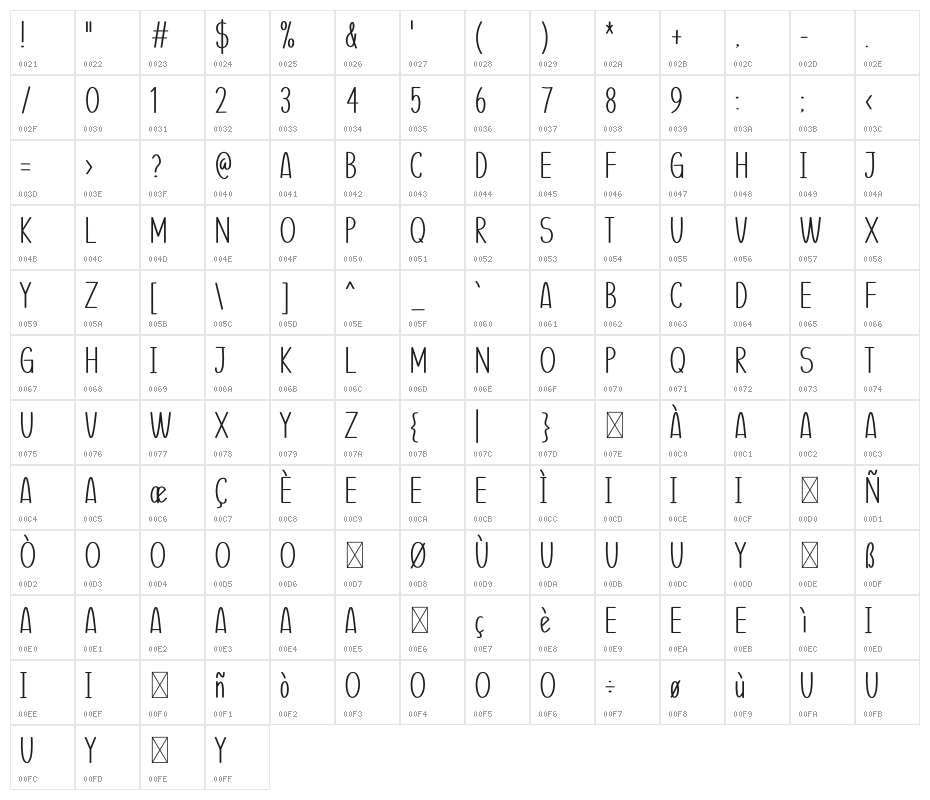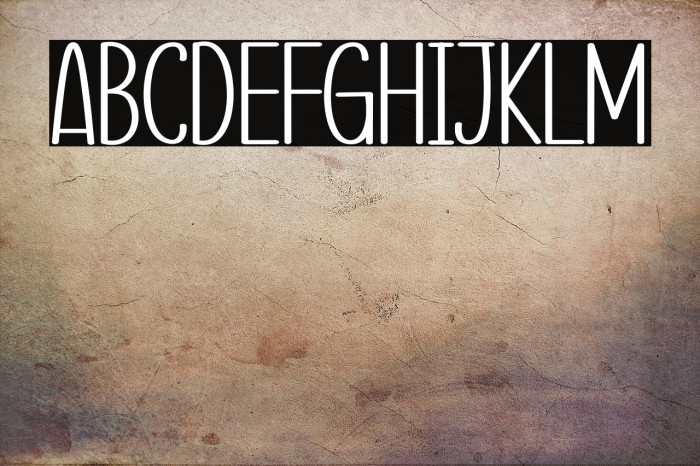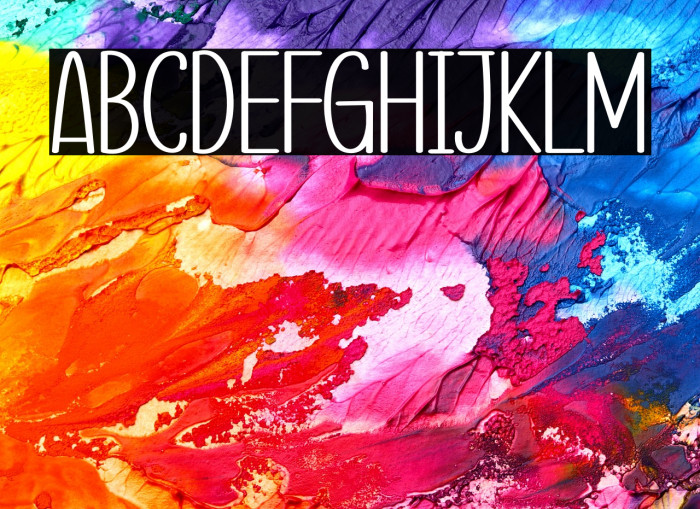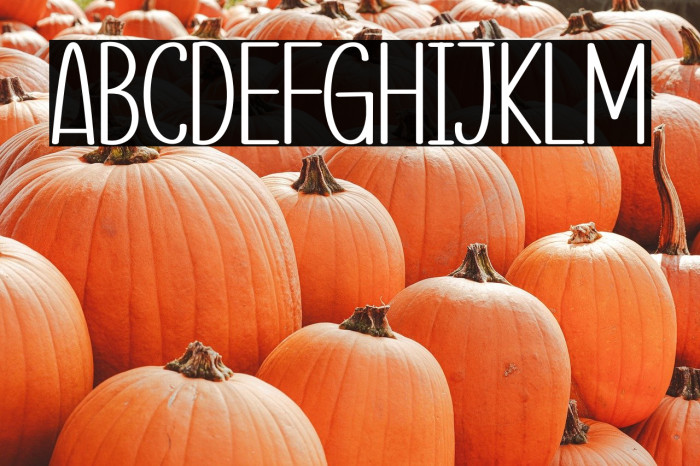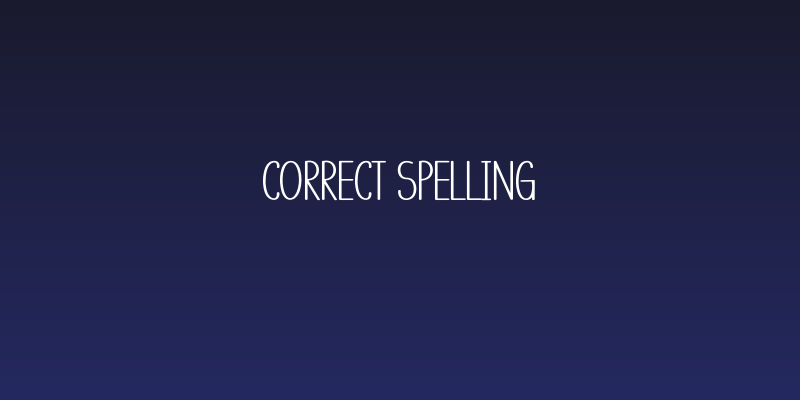
Correct Spelling Font
Correct Spelling Description
A tall, narrow sans-serif typeface with rounded terminals and consistent stroke width, featuring clear and legible characters with generous vertical proportions and minimal ornamentation.
| Overall Style | Playful, Modern, Informal |
| Use Case | Headlines, Display text, Logos, Short phrases |
| Proposed Projects | Posters, childrenΓ’β¬β’s books, playful branding, greeting cards, informal invitations, signage. |